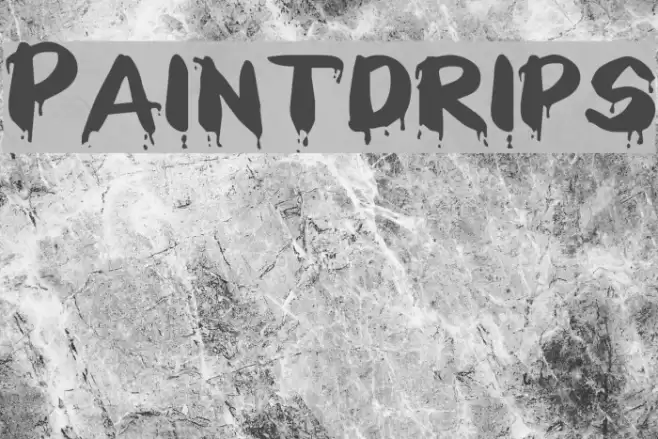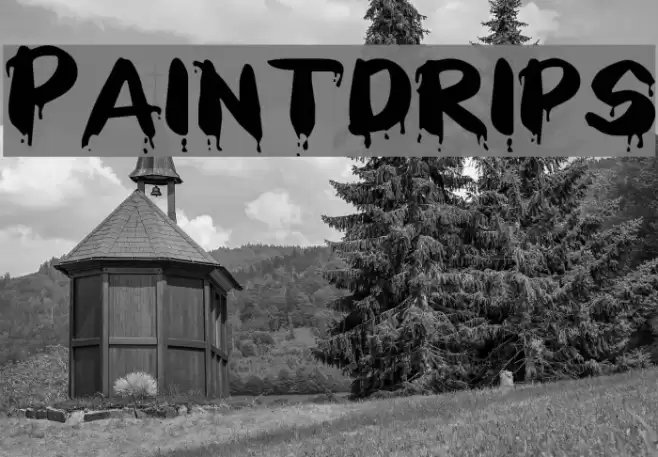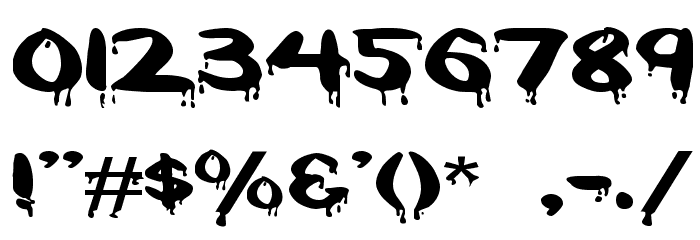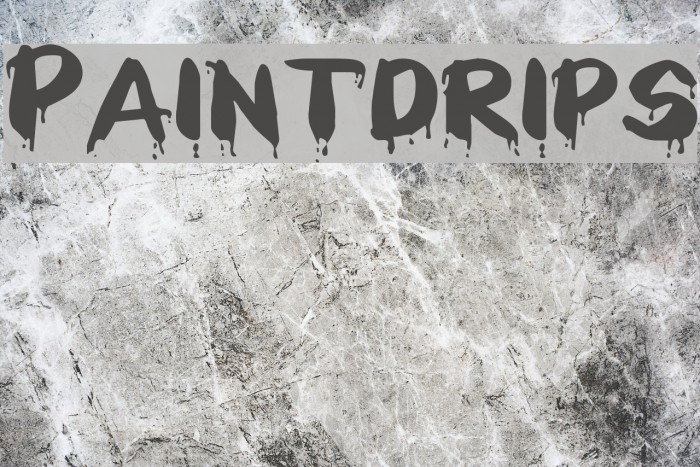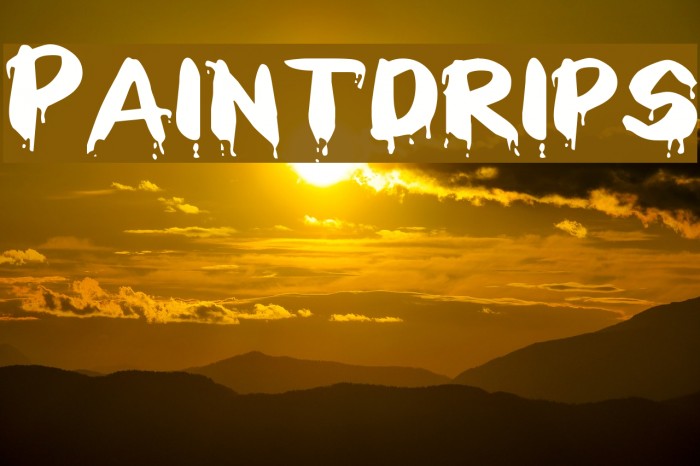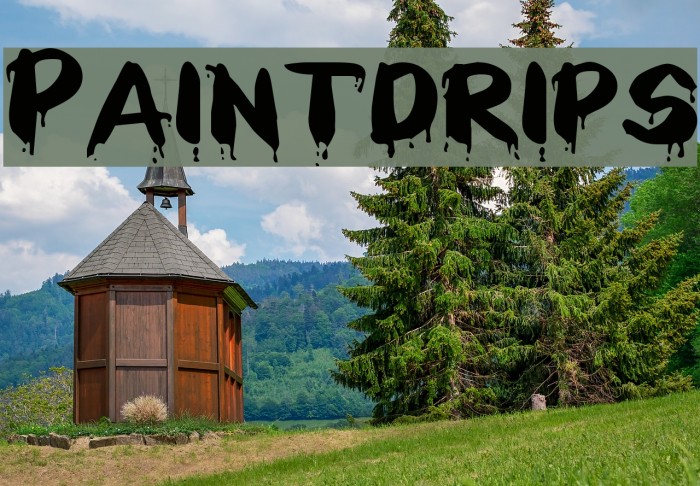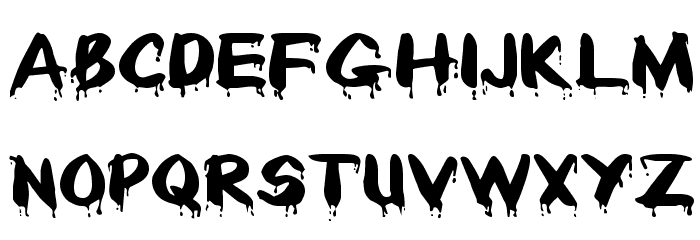
Paintdrips Font
Paintdrips Description
This font features a bold and artistic style, reminiscent of dripping paint or ink. The characters are designed with a unique, edgy look, where each letter appears to have drips extending from the bottom, creating a dynamic and visually striking effect. The uppercase and lowercase letters maintain a consistent style, with rounded edges and a slightly irregular form that adds to the hand-drawn aesthetic. Numbers and special characters follow the same design principles, ensuring a cohesive appearance across all elements. This font is ideal for projects that require a bold statement or a creative, artistic touch.
A bold, artistic font with a dripping paint effect, perfect for creative projects from Handwritten fonts.
- Proposed Projects: Ideal for graffiti art, album covers, posters, and any design needing a bold, artistic flair.